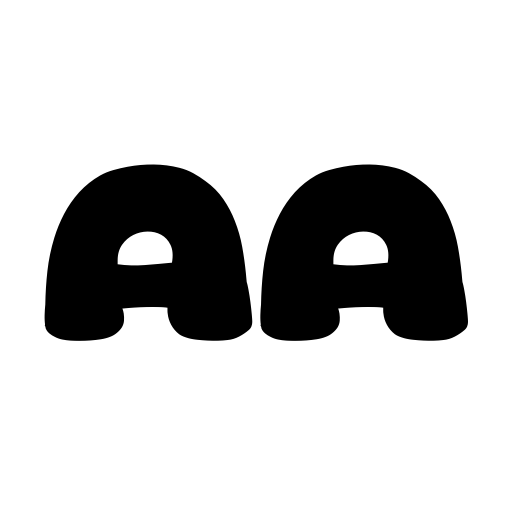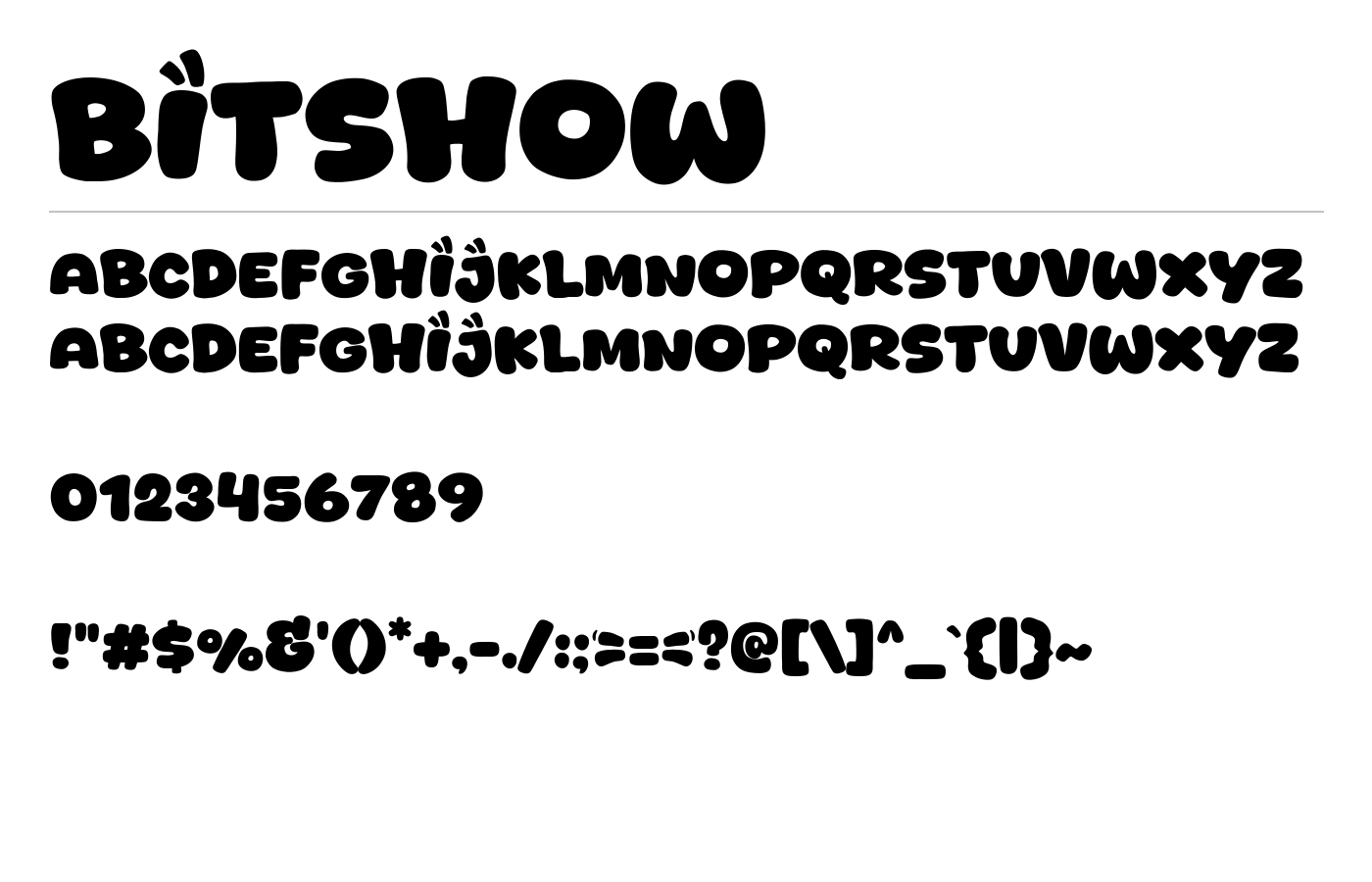
Bitshow is a bold, rounded sans-serif font with a playful and friendly vibe, thanks to its thick, soft-edged letterforms and high x-height. Its chunky shapes and even stroke weight make it ideal for fun, casual designs like kids' content, posters, and informal branding where a warm, approachable feel is desired. This font works best in headlines or display use, adding energetic character without sacrificing readability.
Bitshow Font
About Bitshow Font